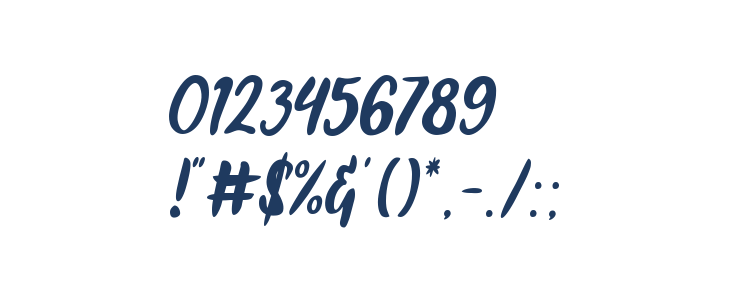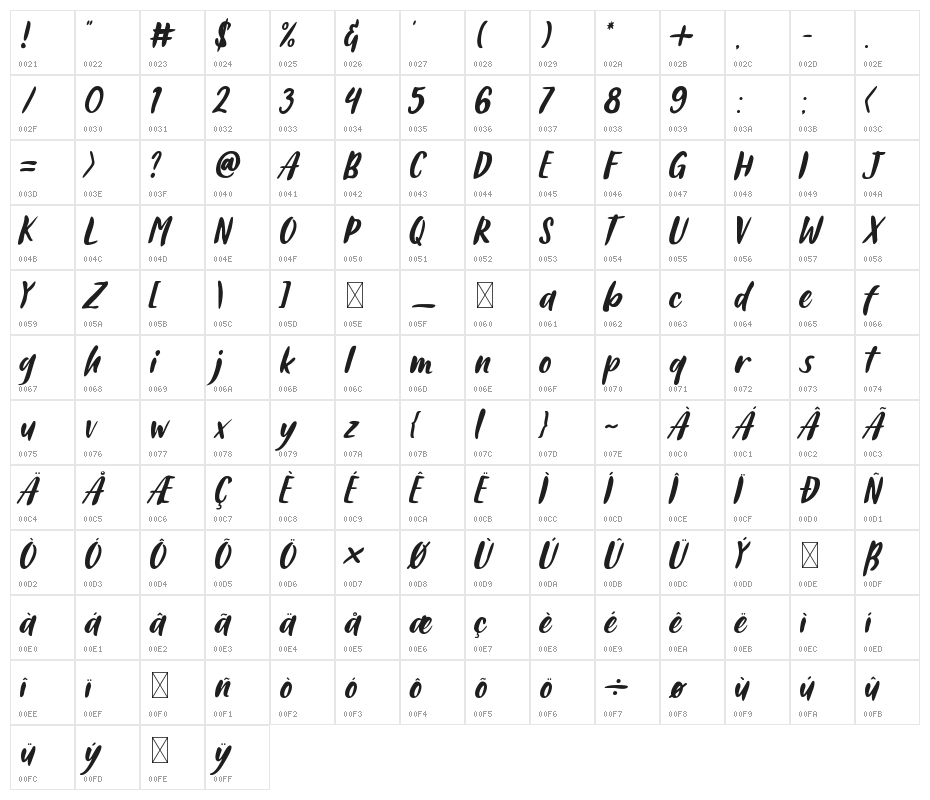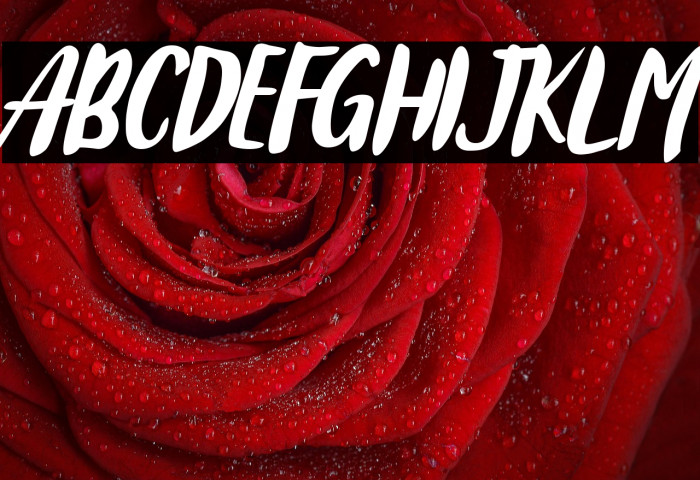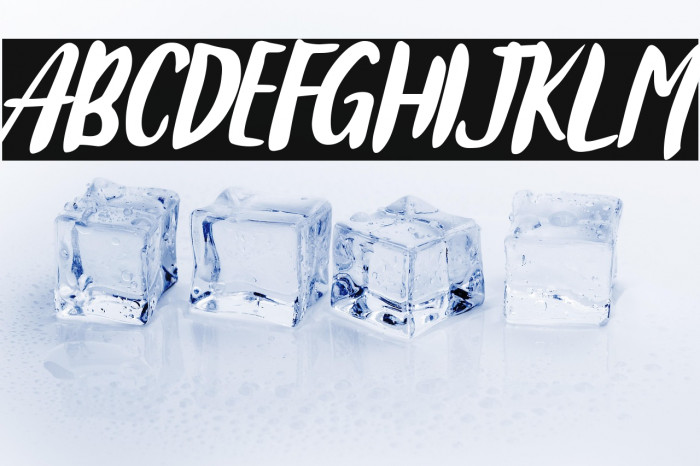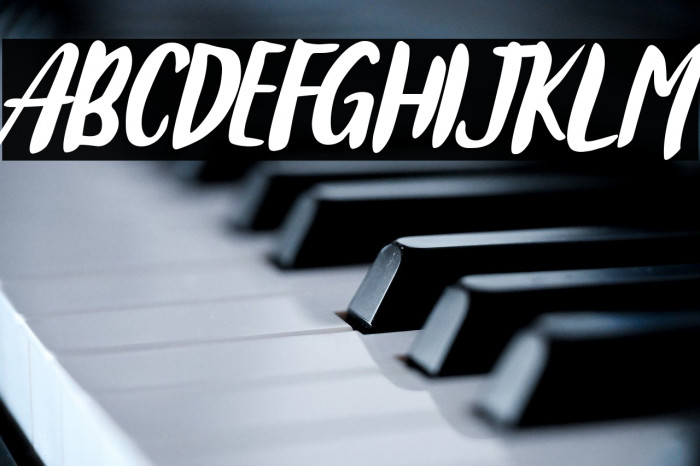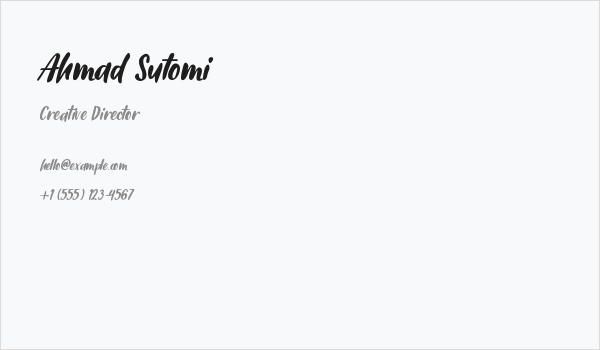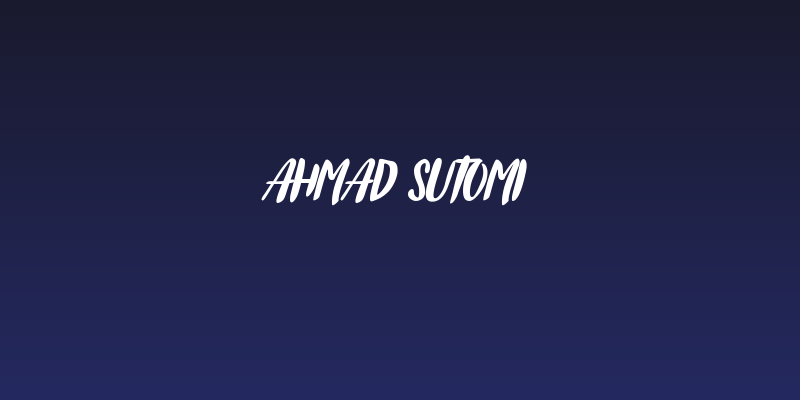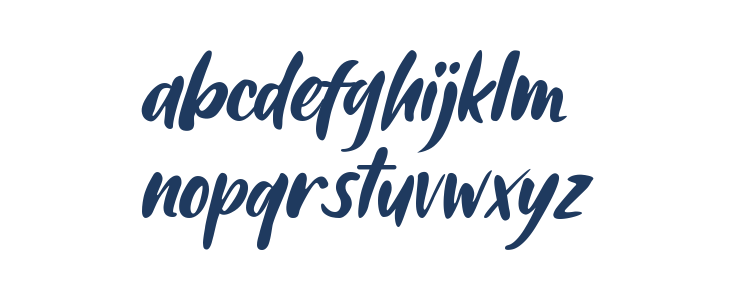
Ahmad Sutomi Font
Ahmad Sutomi Description
This font features a bold and dynamic script style with a handwritten feel. The characters are fluid and connected, giving a sense of motion and energy. The uppercase letters are tall and slightly slanted, while the lowercase letters maintain a consistent flow with rounded edges. The numerals are bold and easy to read, complementing the overall style. Special characters are integrated seamlessly, maintaining the font's cohesive look. This font is ideal for projects that require a personal touch or a lively, expressive aesthetic.
| Proposed Projects | Ideal for branding, invitations, greeting cards, and social media graphics. |